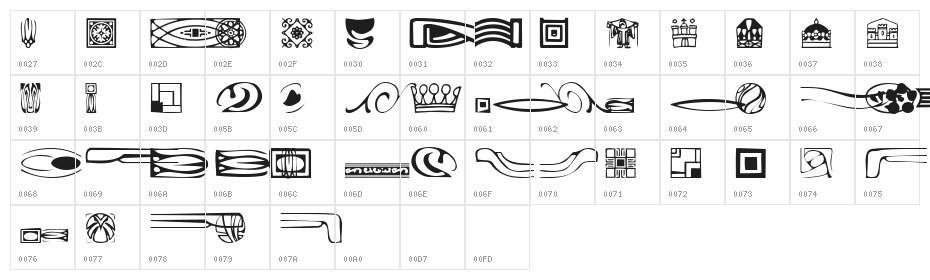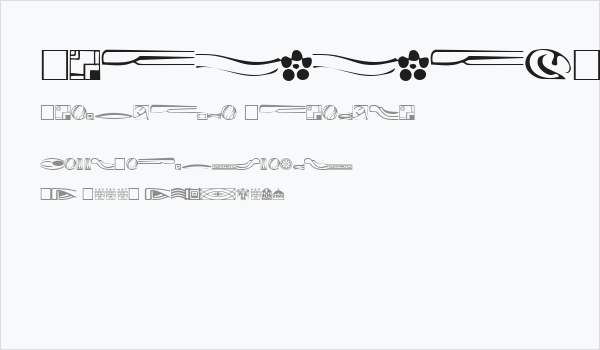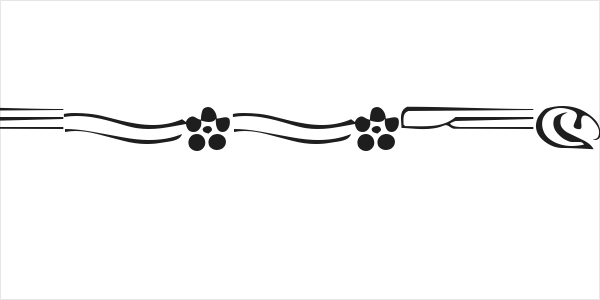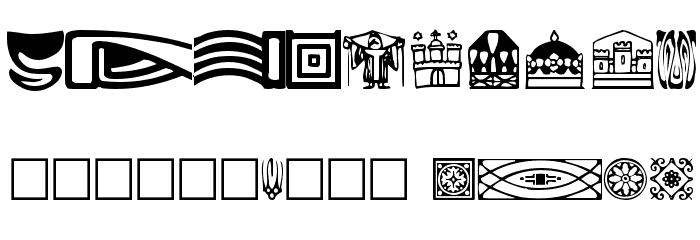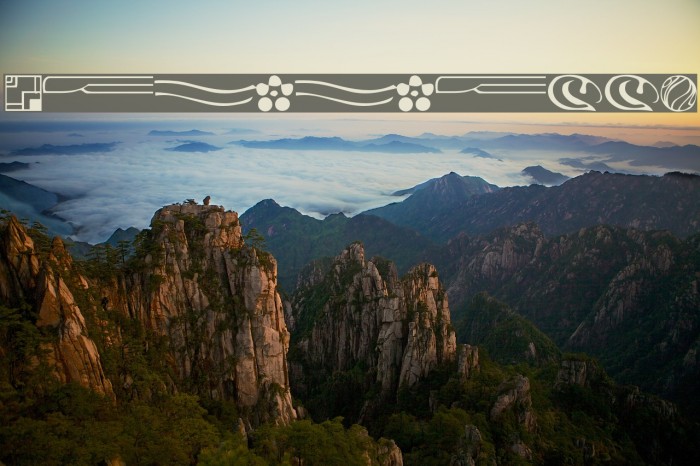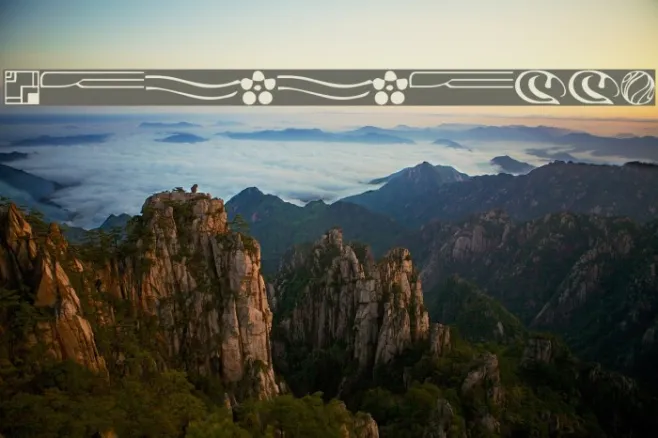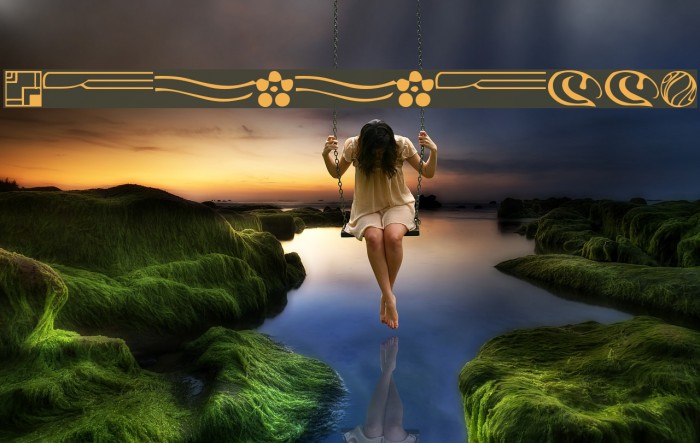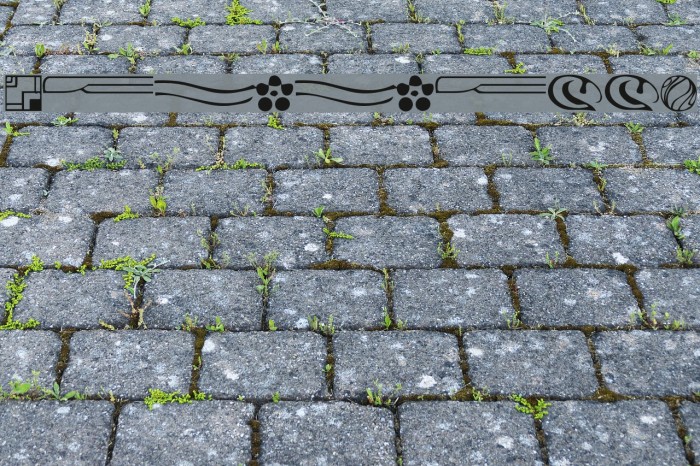
GriffinOne Font
GriffinOne Description
This is not a valid font. The image contains a series of decorative and ornamental symbols rather than a traditional alphabet or numerical set. The elements appear to be intricate designs, possibly inspired by architectural or artistic motifs, and do not correspond to standard alphanumeric characters. These symbols could be used for decorative purposes or as part of a themed design project, but they do not function as a typical font for text representation.
| Use Case | Decorative elements, borders, frames. |
| Proposed Projects | These symbols could be used in decorative design projects, such as borders, frames, or thematic artwork. |